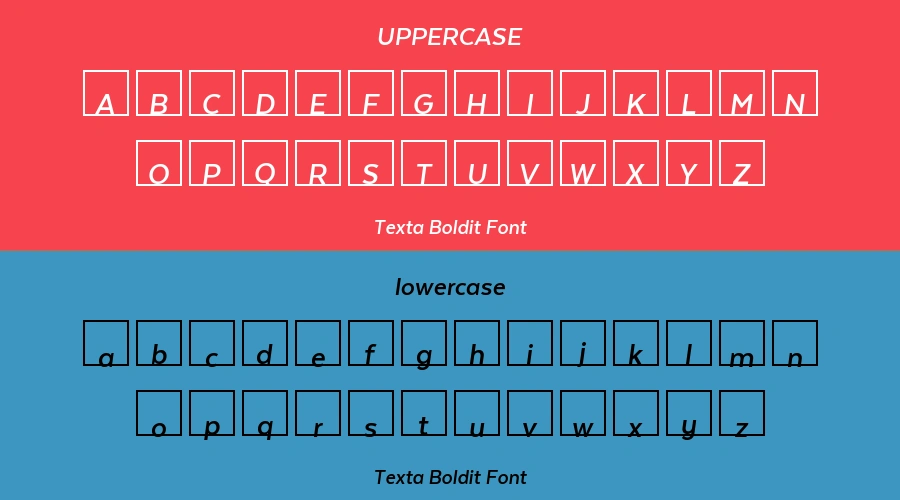
About Texta Boldit Font
Texta Boldit Font embodies typographic excellence through its masterful combination of modular forms and consumer engagement. Created for web design, this typeface delivers exceptional clarity and consumer connection across all applications. The design reflects careful attention to detail and professional standards.
Advanced capabilities include distinctive contextual forms and versatile stylistic sets, giving designers creative control. When used in captions, Texta Boldit Font exhibits remarkable multi-language support. The harmonious balance between ascender height and historical reference sets this typeface apart.